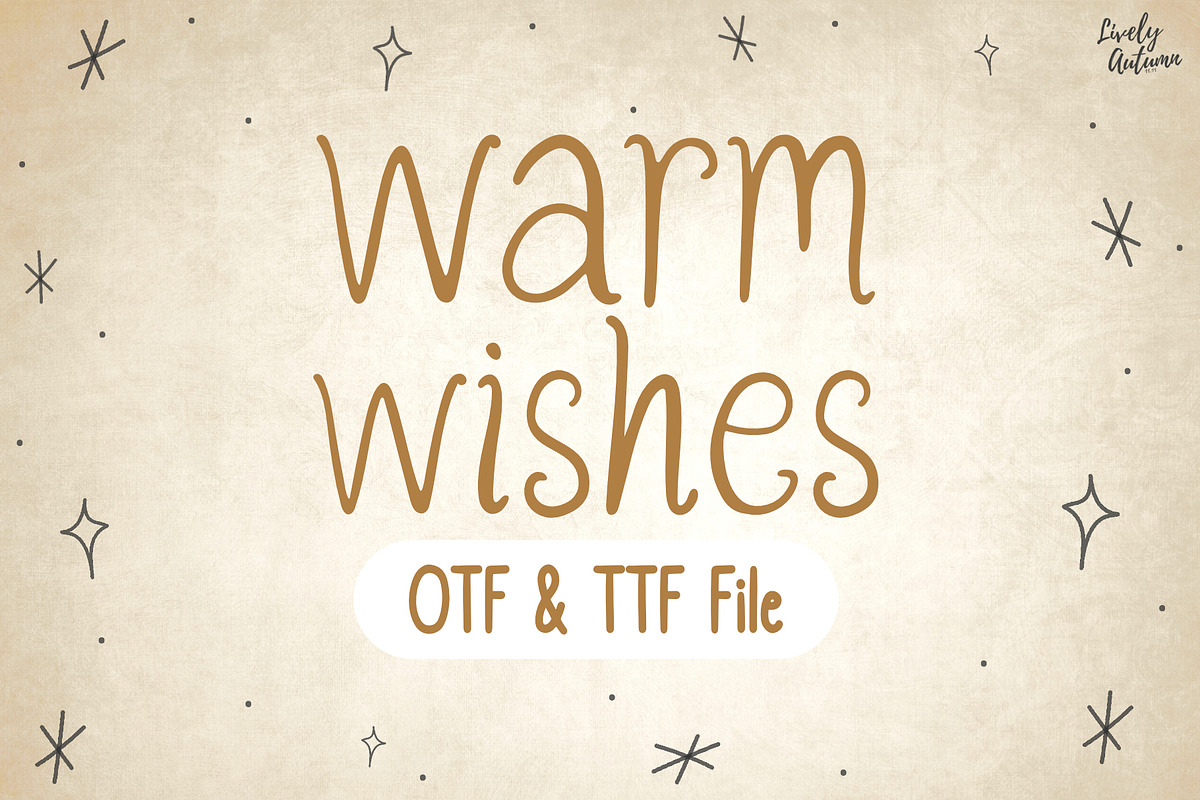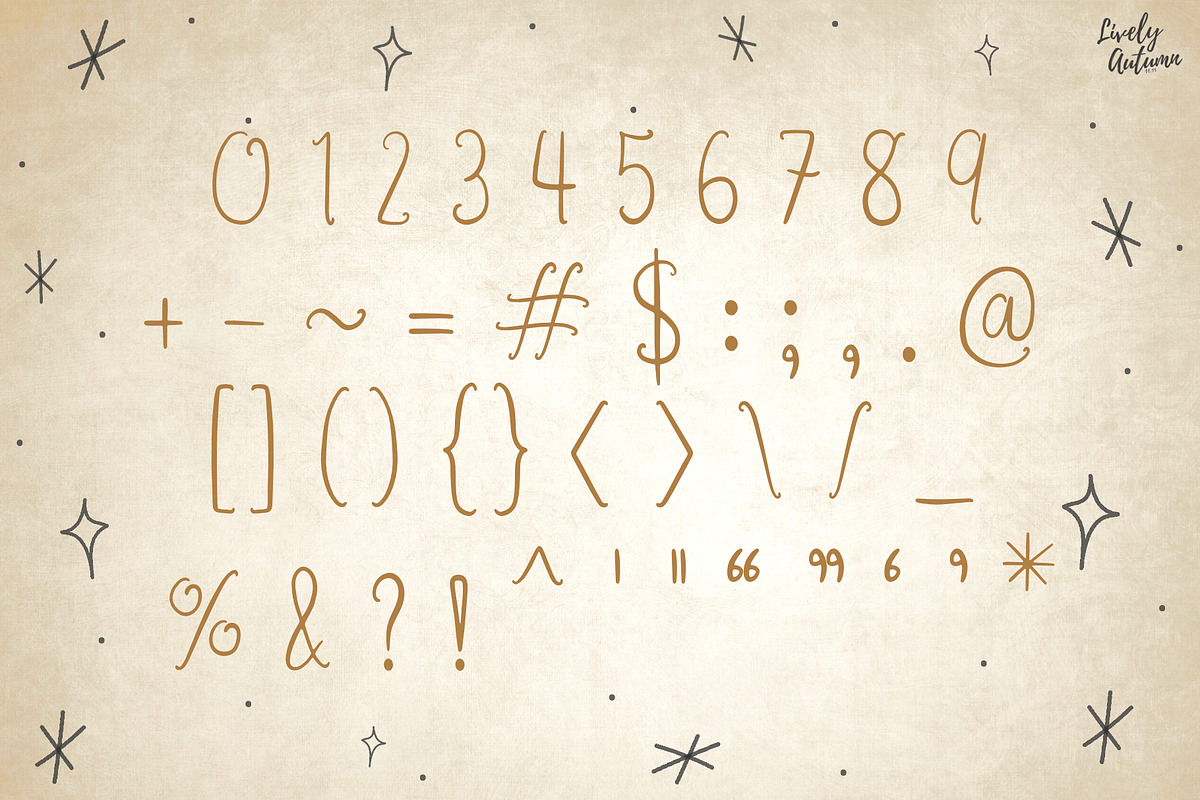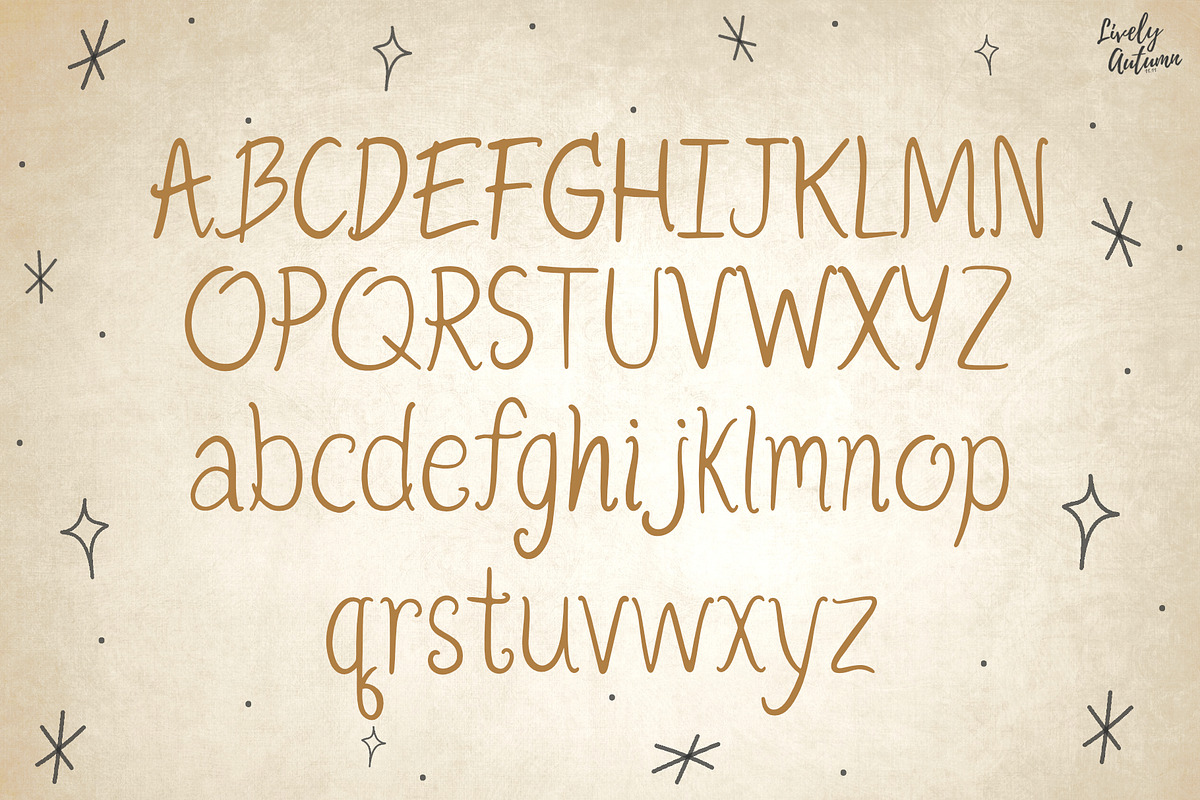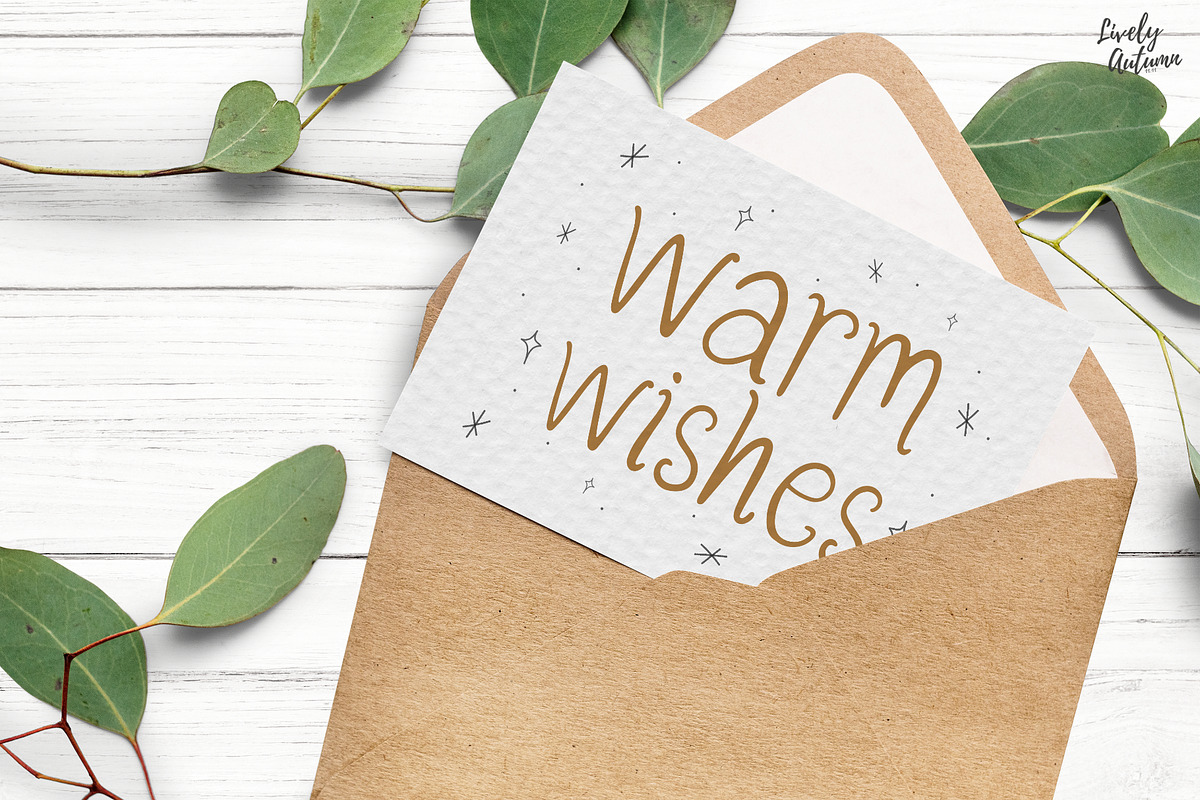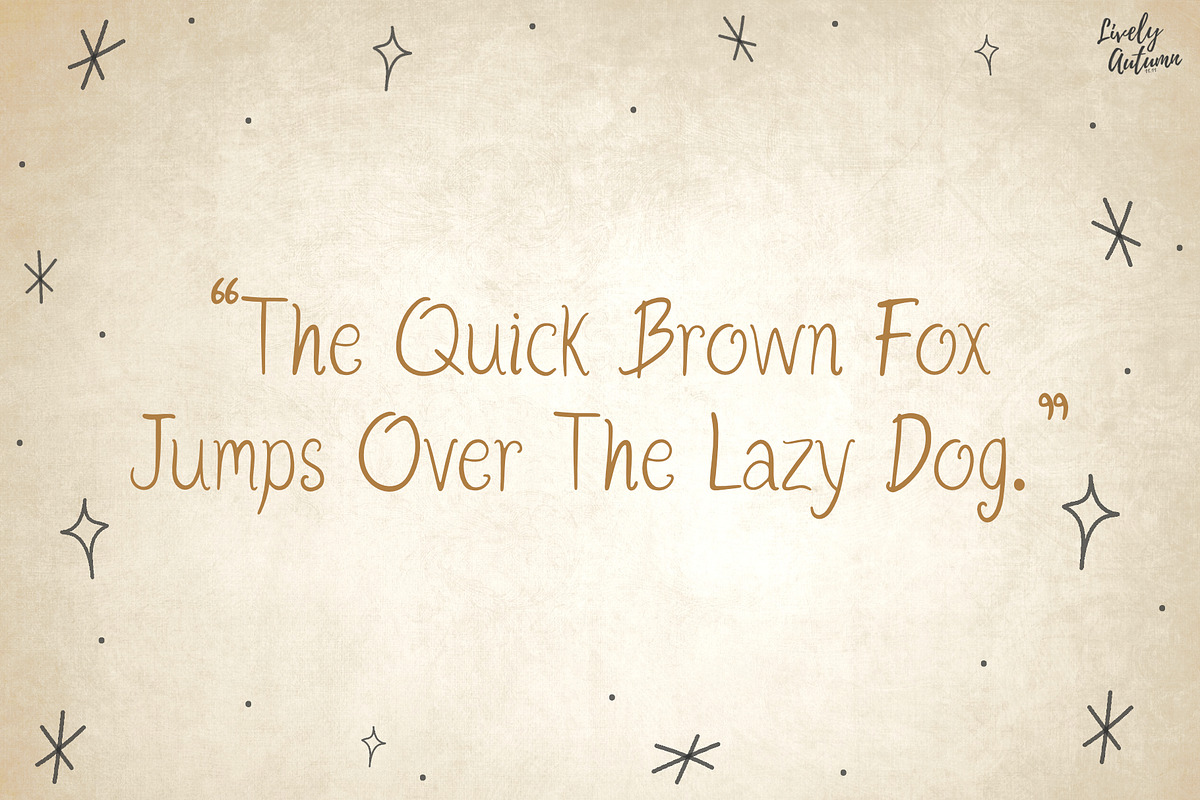
Warm wishes | Sans serif Handwriting
Warm wishes Font is a sans serif display font. Perfect for your personal projects, and various projects. From invitations to posters, social media graphics, journals, and much more.
- Font includes: uppercase, lowercase, numbers, and punctuation.